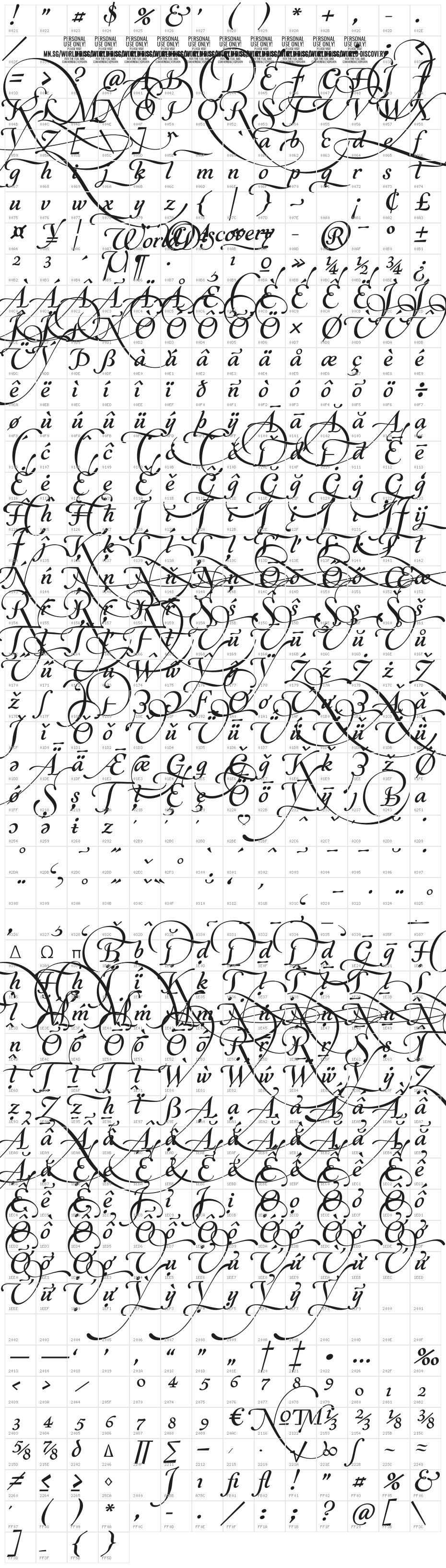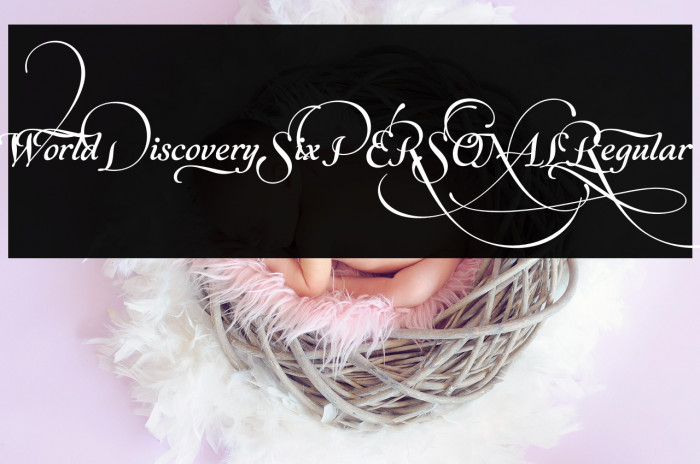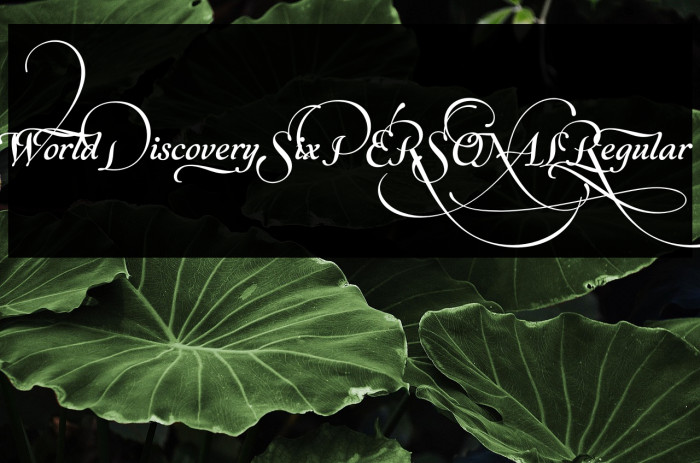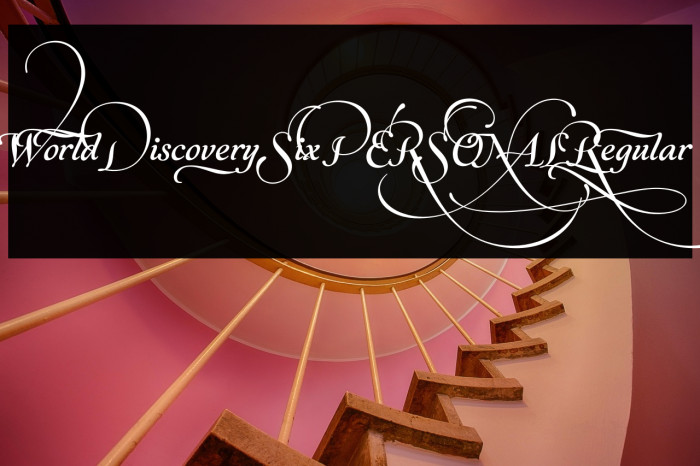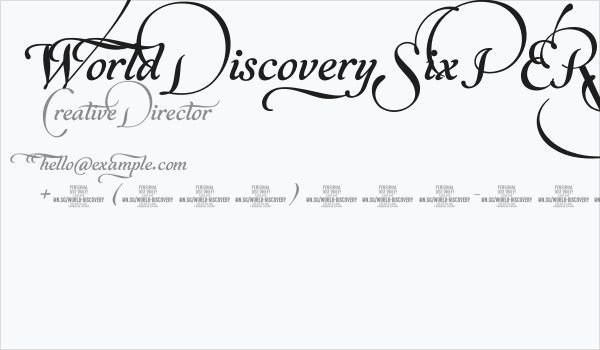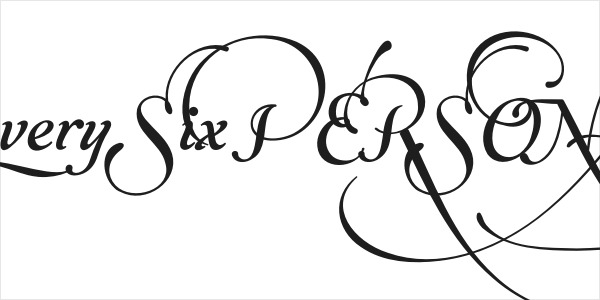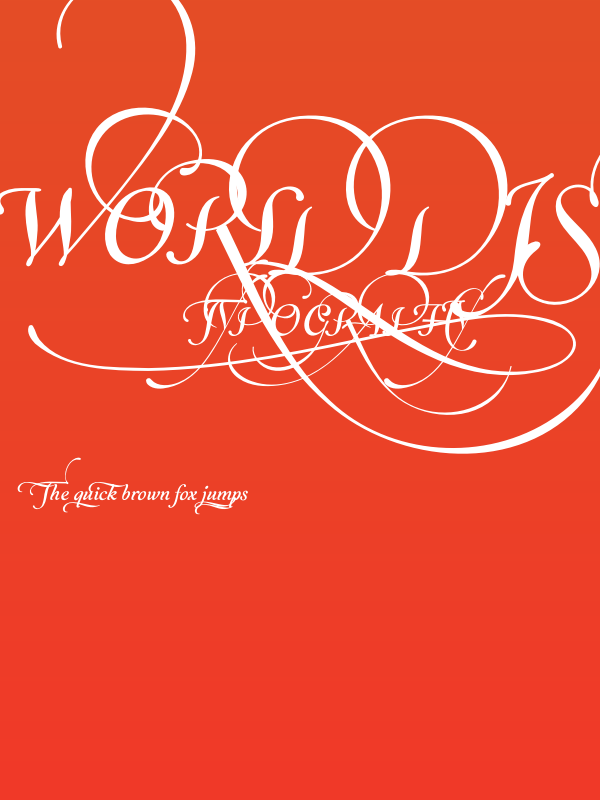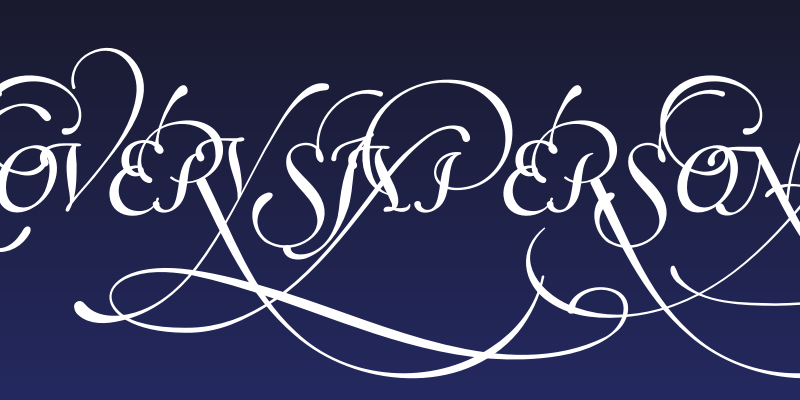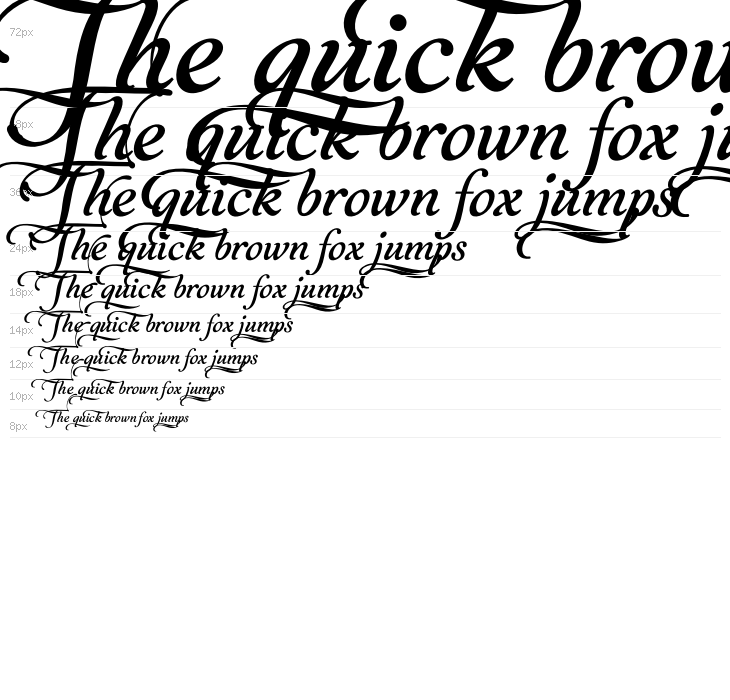
World Discovery Six PERSONAL Regular Font
World Discovery Six PERSONAL Regular Description
This font features an elegant and sophisticated script style, characterized by its flowing and intricate letterforms. The uppercase letters are adorned with elaborate swashes and flourishes, giving them a highly decorative appearance. The lowercase letters maintain a more consistent flow, with gentle curves and a slightly slanted orientation, enhancing readability while retaining a sense of elegance. The numerals and special characters are designed to match the ornate style of the alphabet, ensuring a cohesive look across all text. This font's high contrast between thick and thin strokes adds to its dramatic and eye-catching aesthetic.
| Proposed Projects | Ideal for wedding invitations, luxury branding, elegant packaging, and decorative headlines. |